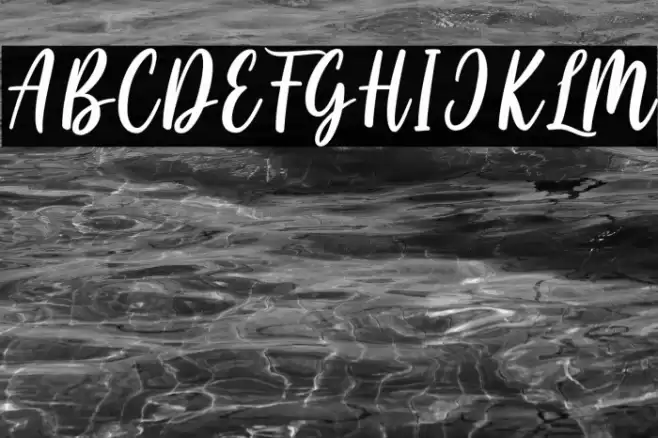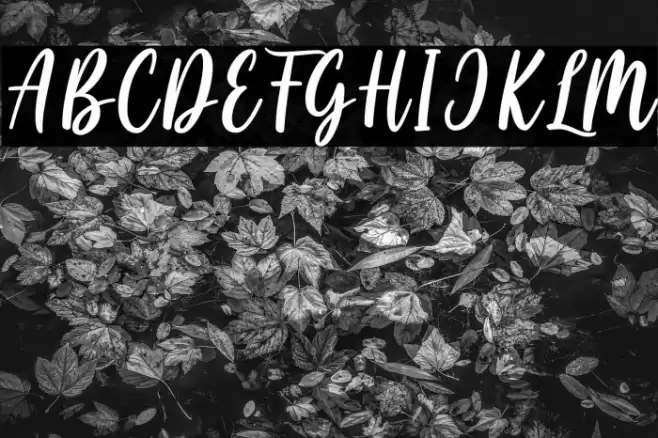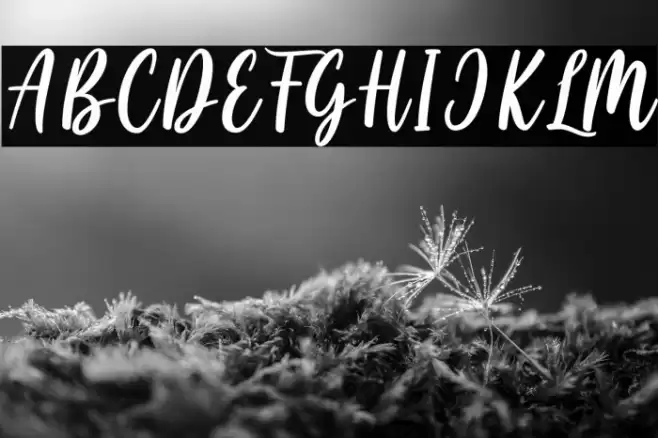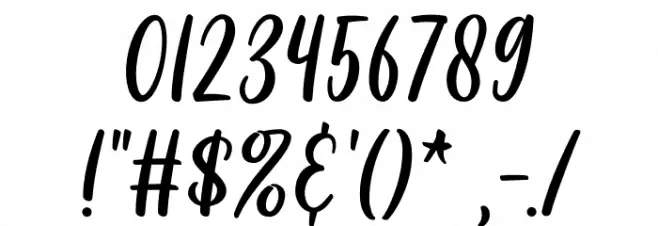
Cayla Stylish Font
Cayla Stylish Description
This font features a stylish and flowing script design, characterized by its elegant and fluid letterforms. The uppercase letters are tall and slightly slanted, giving a sense of movement and grace. The lowercase letters maintain a consistent flow, with smooth curves and connections that enhance readability while retaining a decorative flair. The numerals are bold and clear, matching the overall aesthetic of the font. Special characters are thoughtfully designed to complement the script style, making them suitable for a variety of creative applications. The font's overall appearance is both modern and sophisticated, ideal for projects that require a touch of elegance.
A stylish and flowing script font with elegant, fluid letterforms from Uncategorized fonts.
- Font: Cayla Stylish
- Proposed Projects: Ideal for wedding invitations, branding, greeting cards, and elegant logo designs.
- Use Case: Logos, Headlines, Invitations